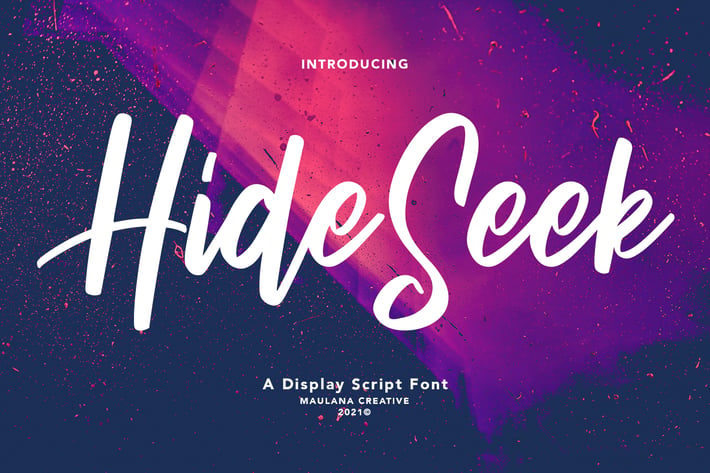
Hide Seek Display Script Font
Hide Seek is a Script Display font. With bold stroke, condensed and fun character with a bit of ligatures. To give you an extra creative work. Hide Seek font support multilingual more than 100+ language. This font is good for logo design, Social media, Movie Titles, Books Titles, a short text even a long text letter and good for your secondary text font with sans or serif. Make a stunning work with Hide Seek font.